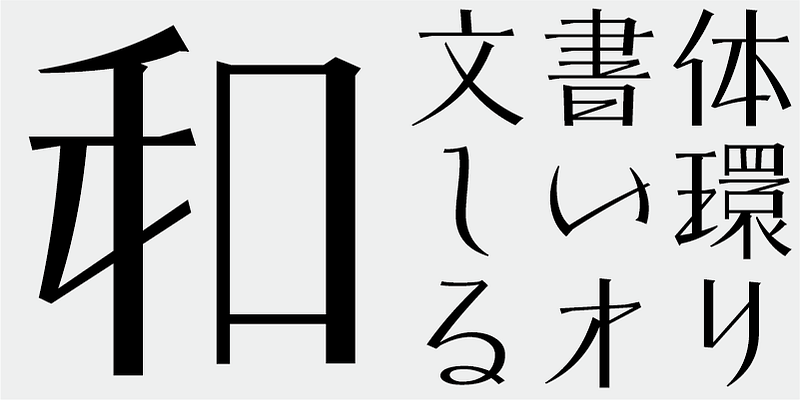
AB Kiraku L Font Free Download is a stylish and clean typeface that combines the elegance of traditional calligraphy with modern design elements. The L variant is characterized by its soft curves and gentle transitions, making it ideal for projects that require a touch of sophistication and warmth, such as branding, invitations, editorial design, and promotional materials.
This font maintains excellent readability while exuding a refined, artistic aesthetic. It supports both Japanese and Latin scripts, making it suitable for bilingual projects or those that require a global reach.